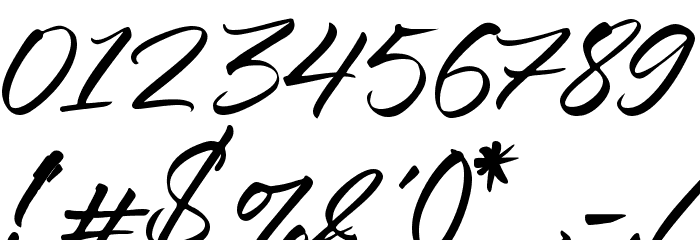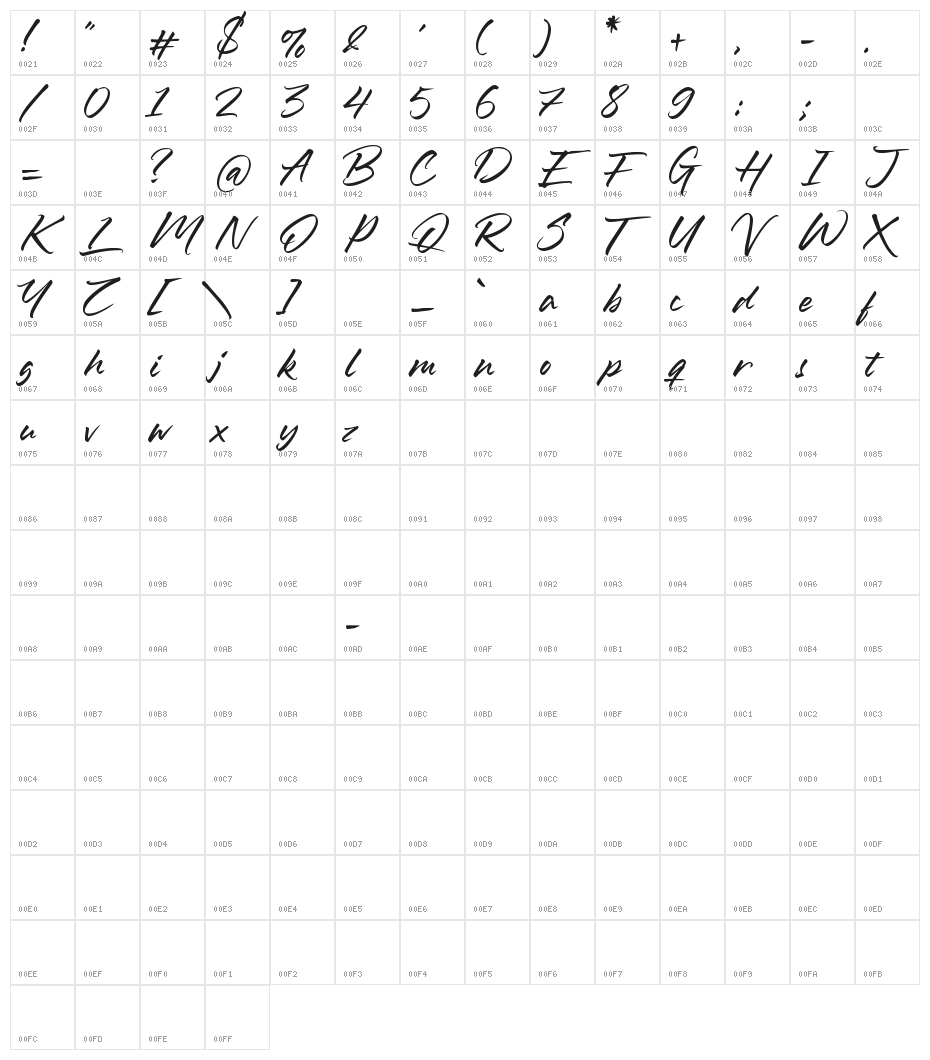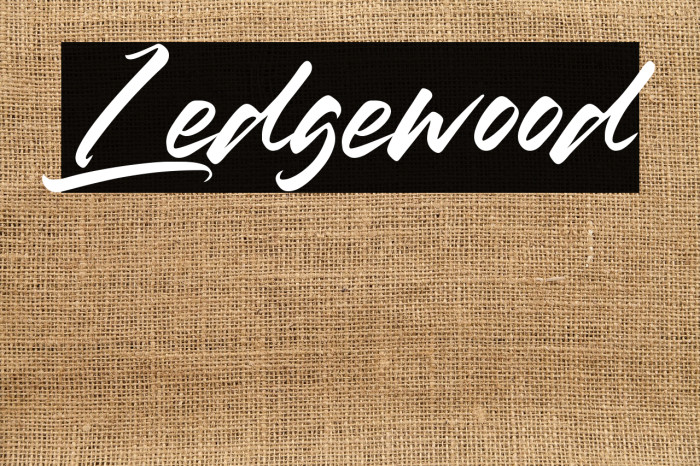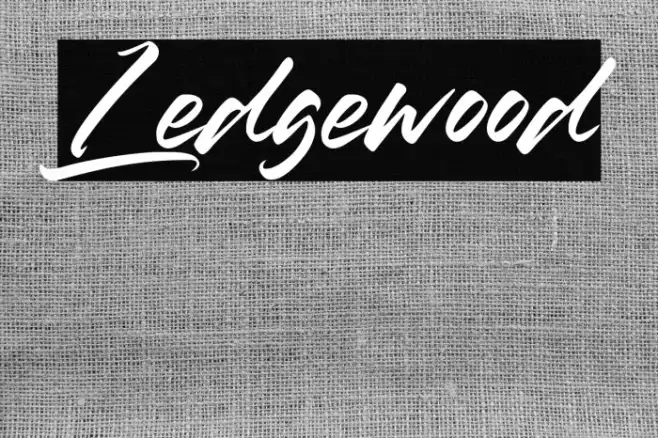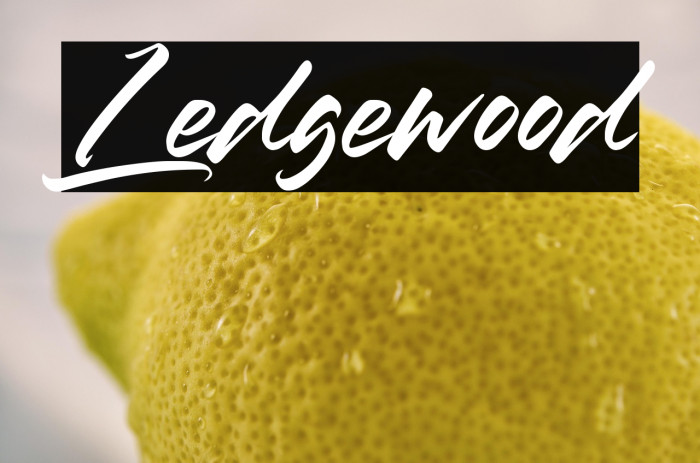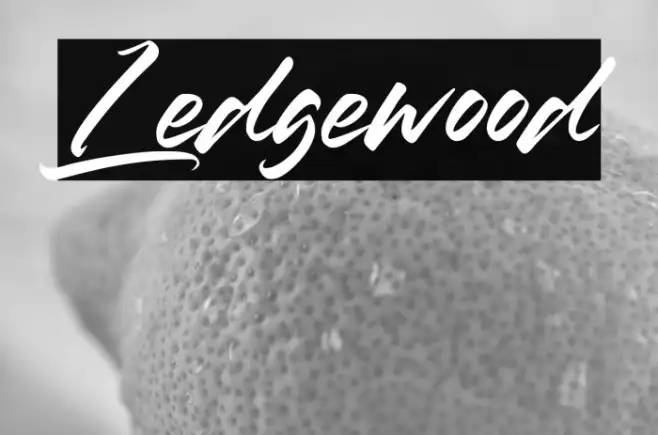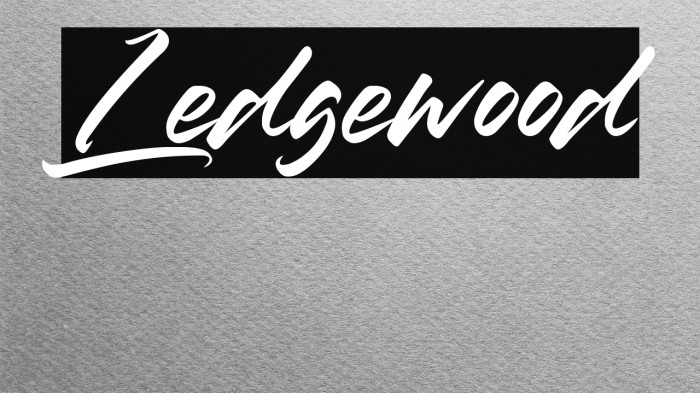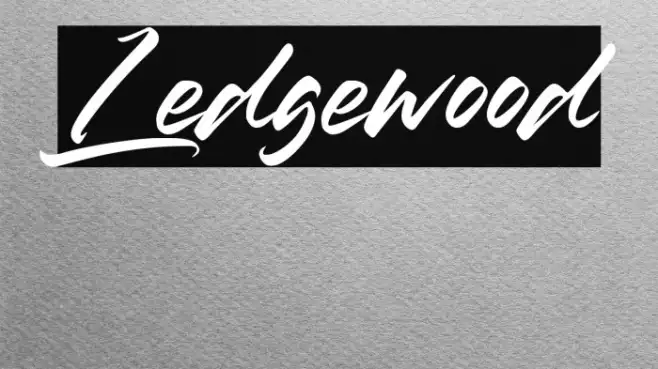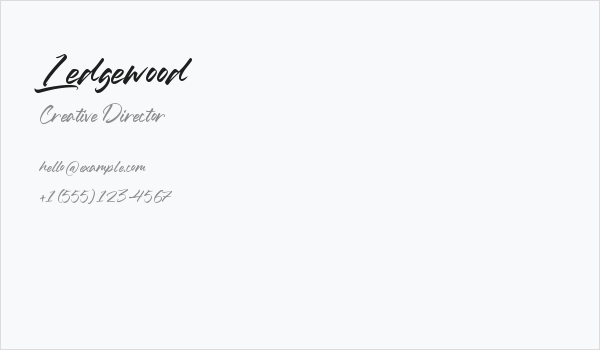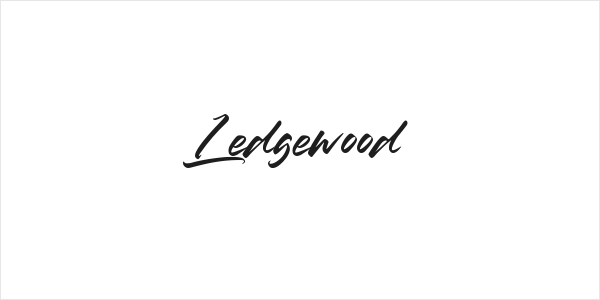
Ledgewood Font
Ledgewood Description
This font exudes a dynamic and energetic feel with its bold, flowing script style. The letters are connected in a cursive manner, giving it a handwritten appearance that is both elegant and expressive. The strokes are thick and consistent, providing a strong presence on the page. The uppercase letters are slightly more formal, while the lowercase letters maintain a casual and approachable look. The numbers and special characters are designed to match the overall style, ensuring a cohesive appearance across all text. This font is perfect for projects that require a personal touch or a sense of sophistication.